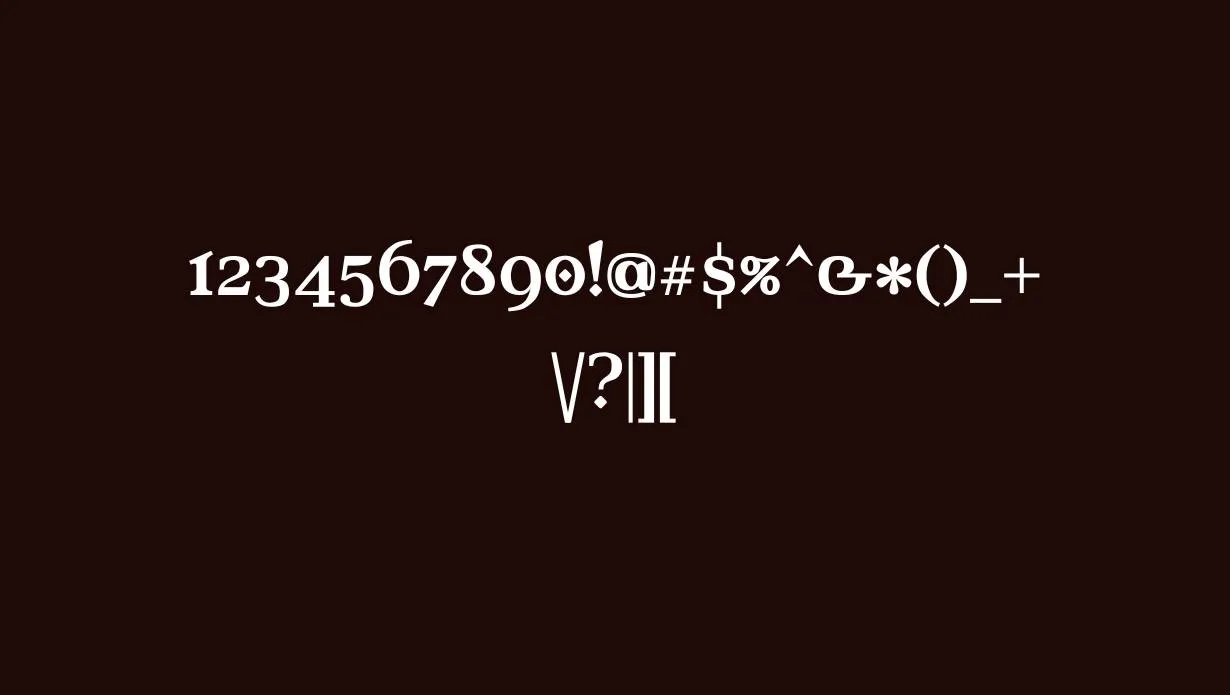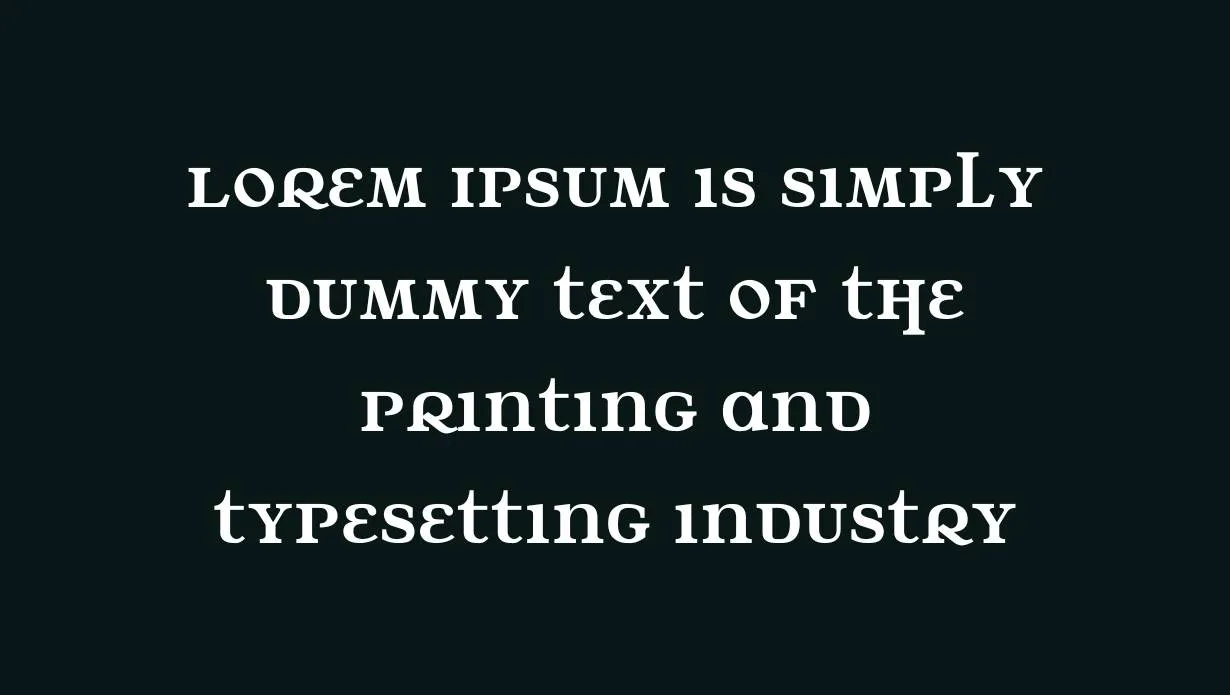
Water Street Font has a playful and decorative design, ideal for creative projects, children’s books, and imaginative branding.
Its whimsical and unique letterforms add a sense of fun and creativity to your designs.
| Name | Water Street Font |
| Designer | Darren Rigby |